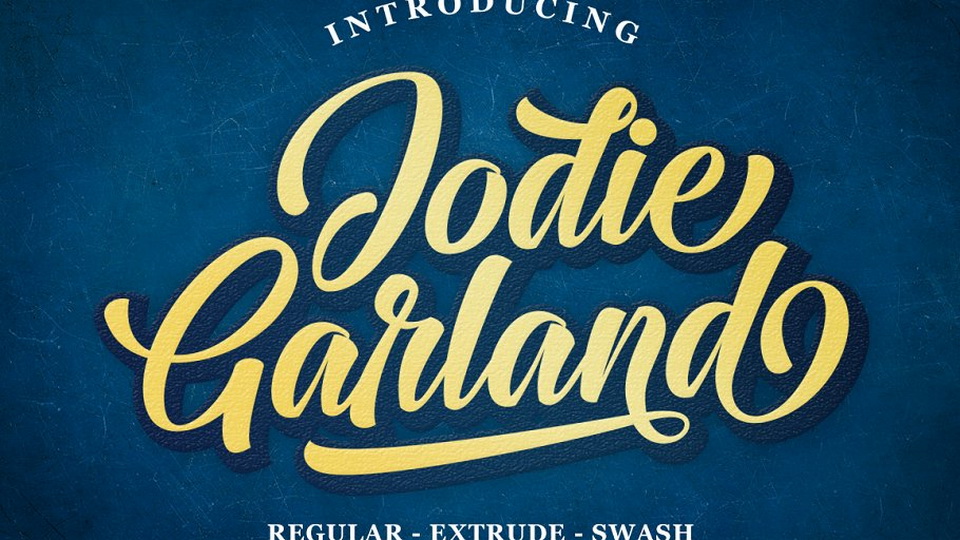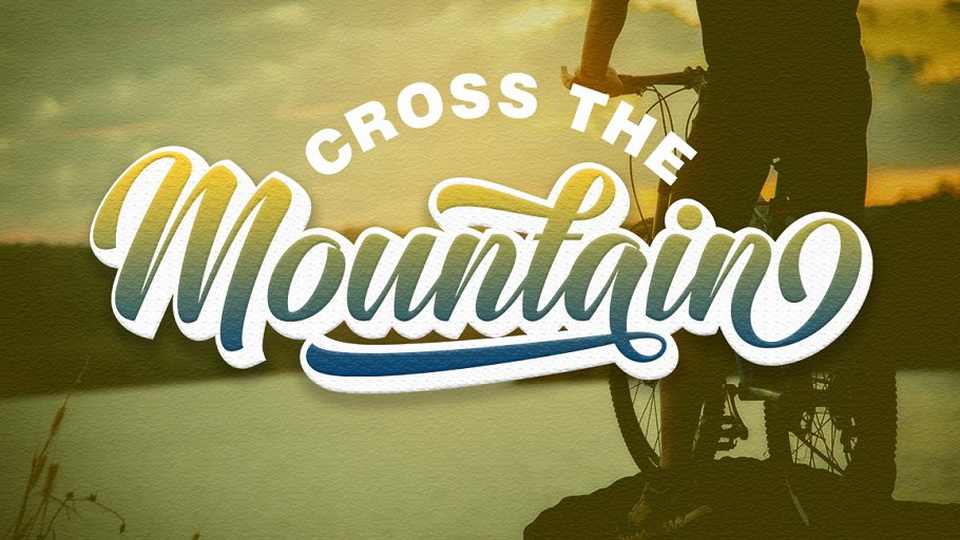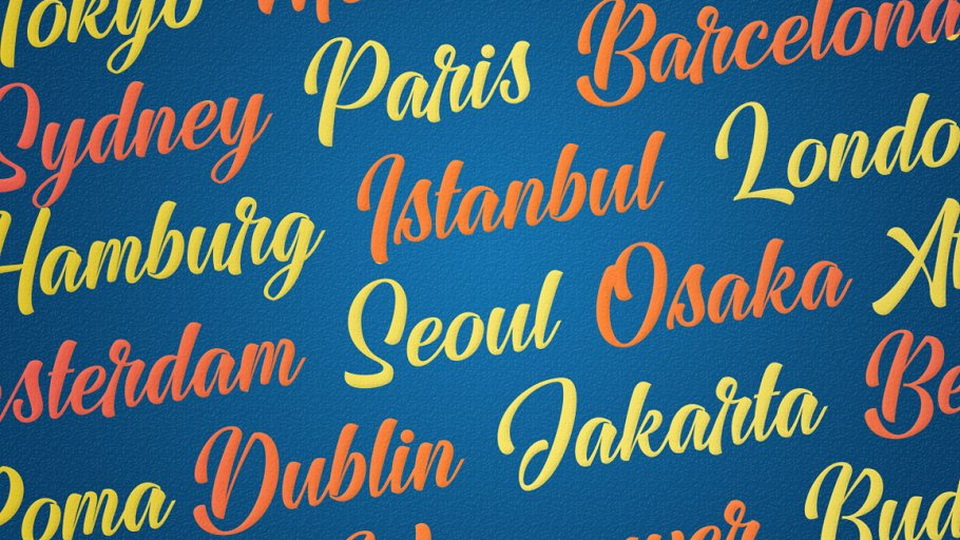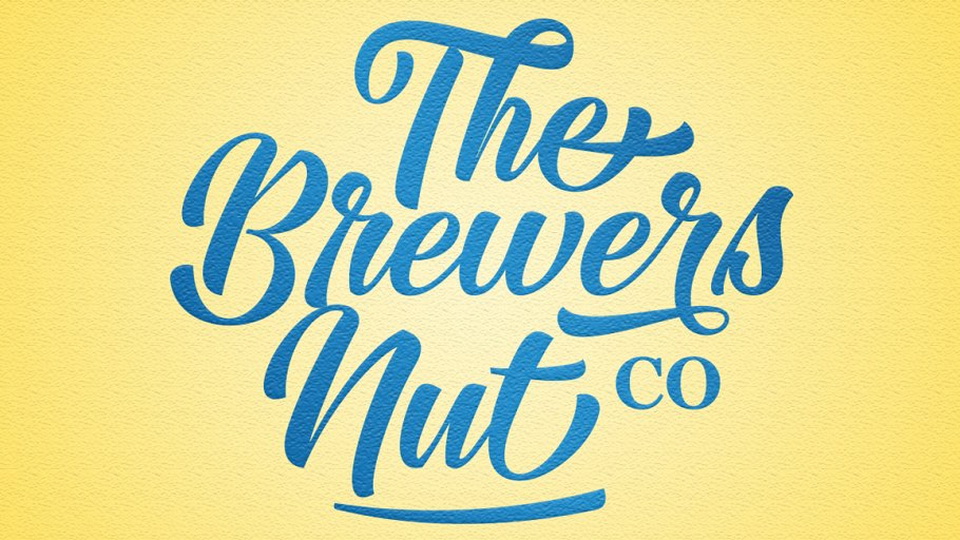
Jodie Garland Script
Jodie Garland is a stunning hand lettered script inspired by retro style. Jodie Garland Script is great features for logos, posters, badges, book covers, t-shirt designs, handwritten quotes, product packaging, headers, posters, merchandise, social media & greeting cards.
Designed by: Lettersams